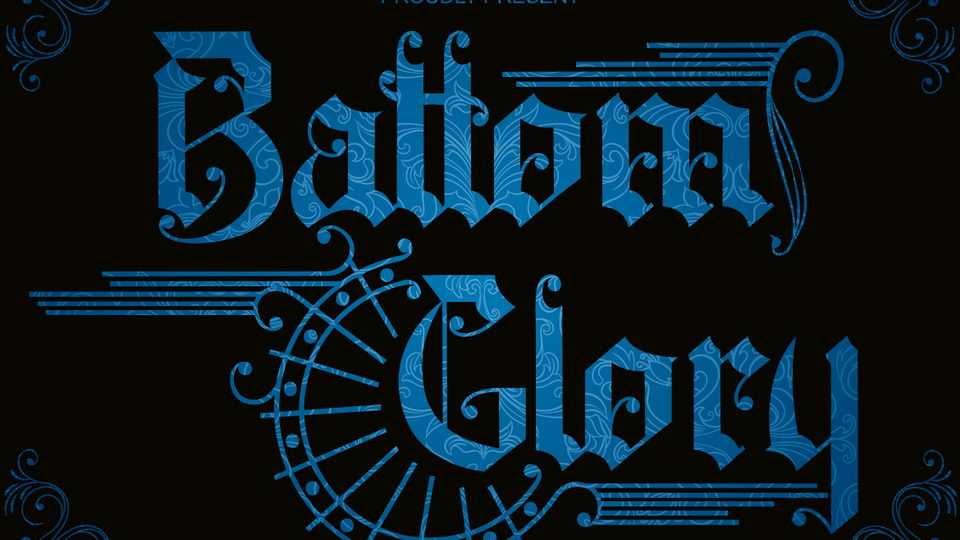
Download Battom Glory font, a bold and distinct blackletter typeface. Battom Glory is ideal for headlines, posters, book covers, branding, tattoo design and more.